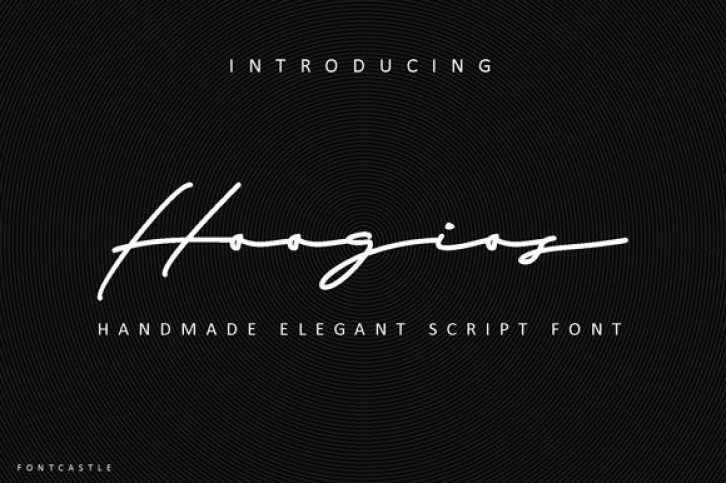
Hoogios is a luxurious and stylish script font. Its asymmetrical and unique letters make this font a masterpiece.
Fall in love with its incredibly versatile style and use it to create spectacular designs!